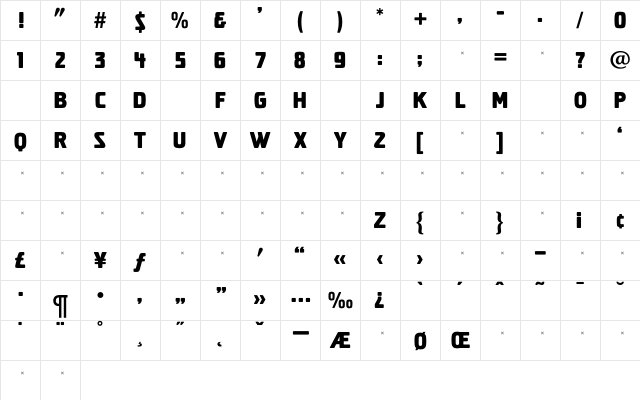
Complete ElstonBold Regular glyph index. Displaying only characters natively supported by ElstonBold Regular font.
ElstonBold is a composed and adaptable typeface that performs quietly and consistently across a wide range of design contexts. Its bold stroke weight gives it real presence on the page.